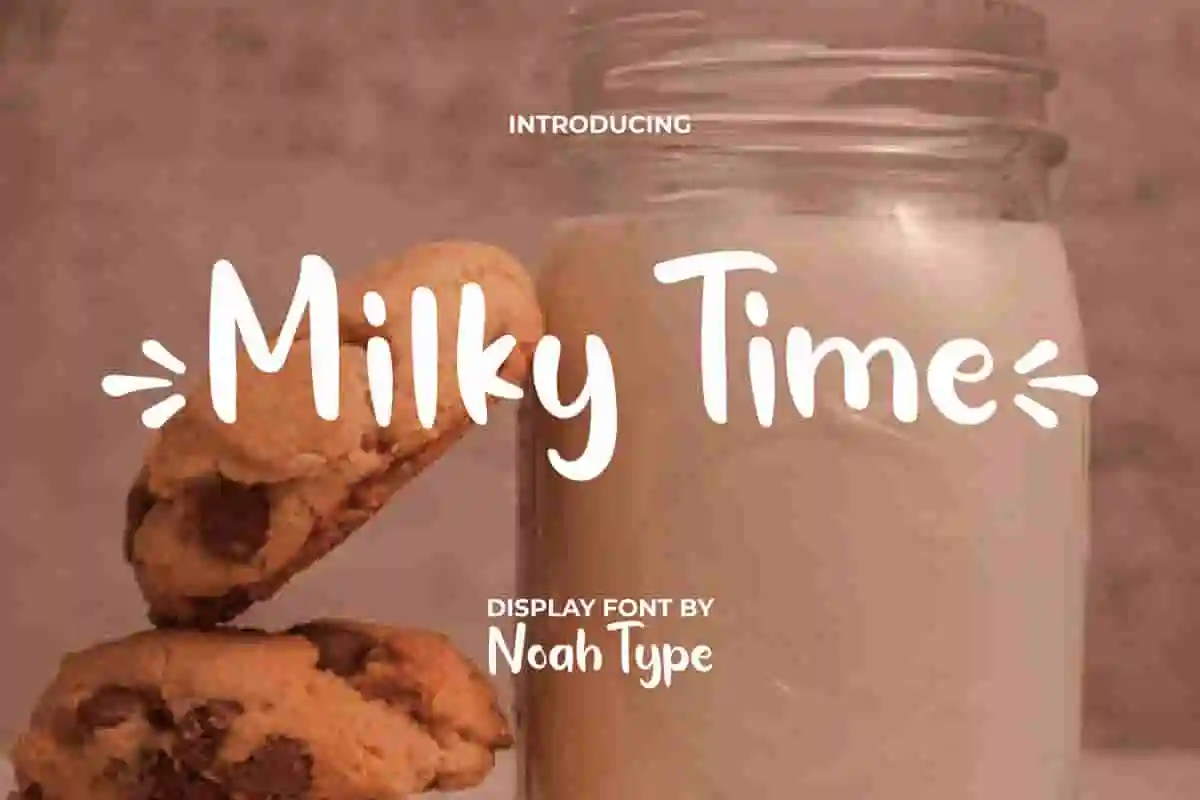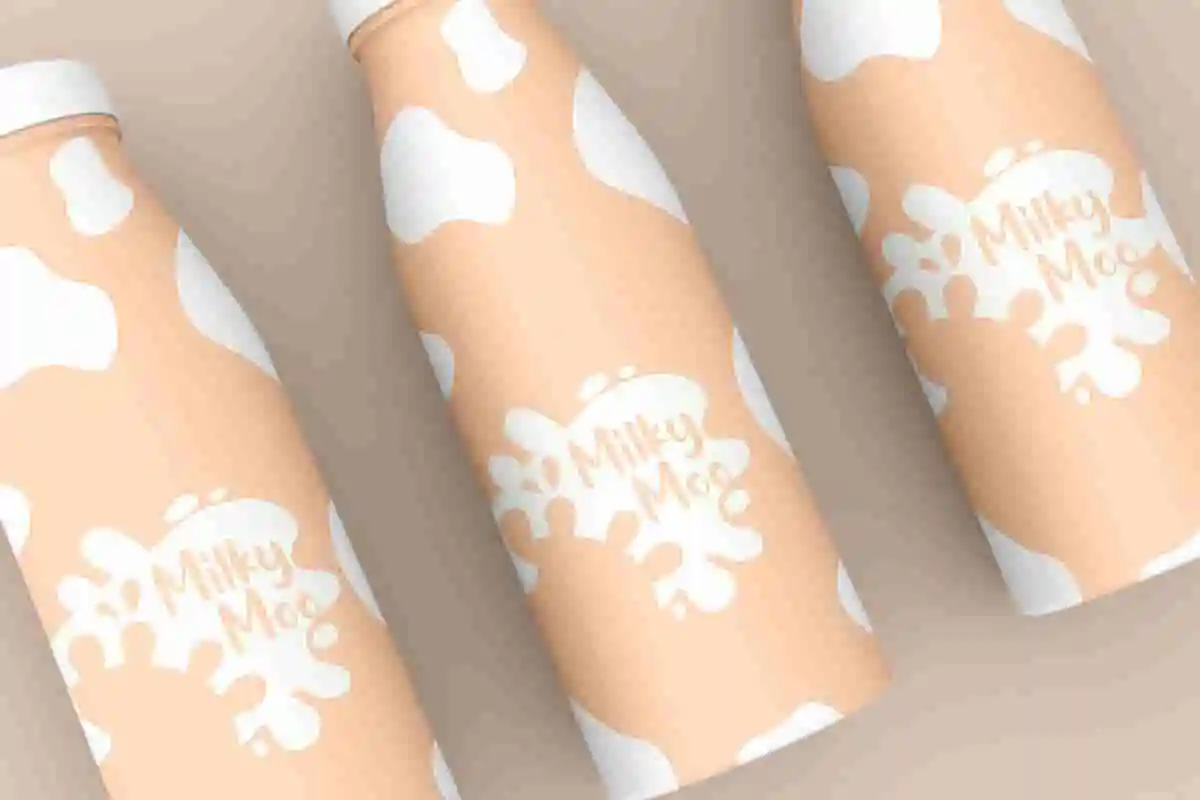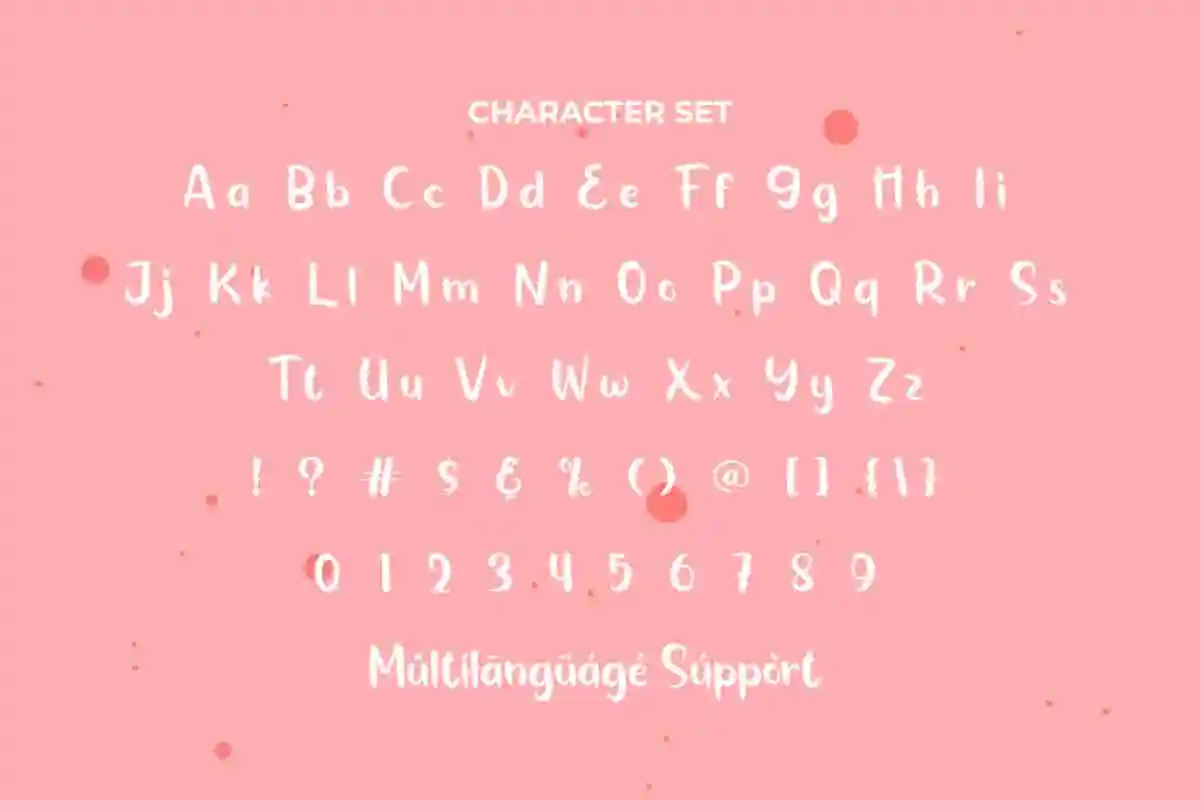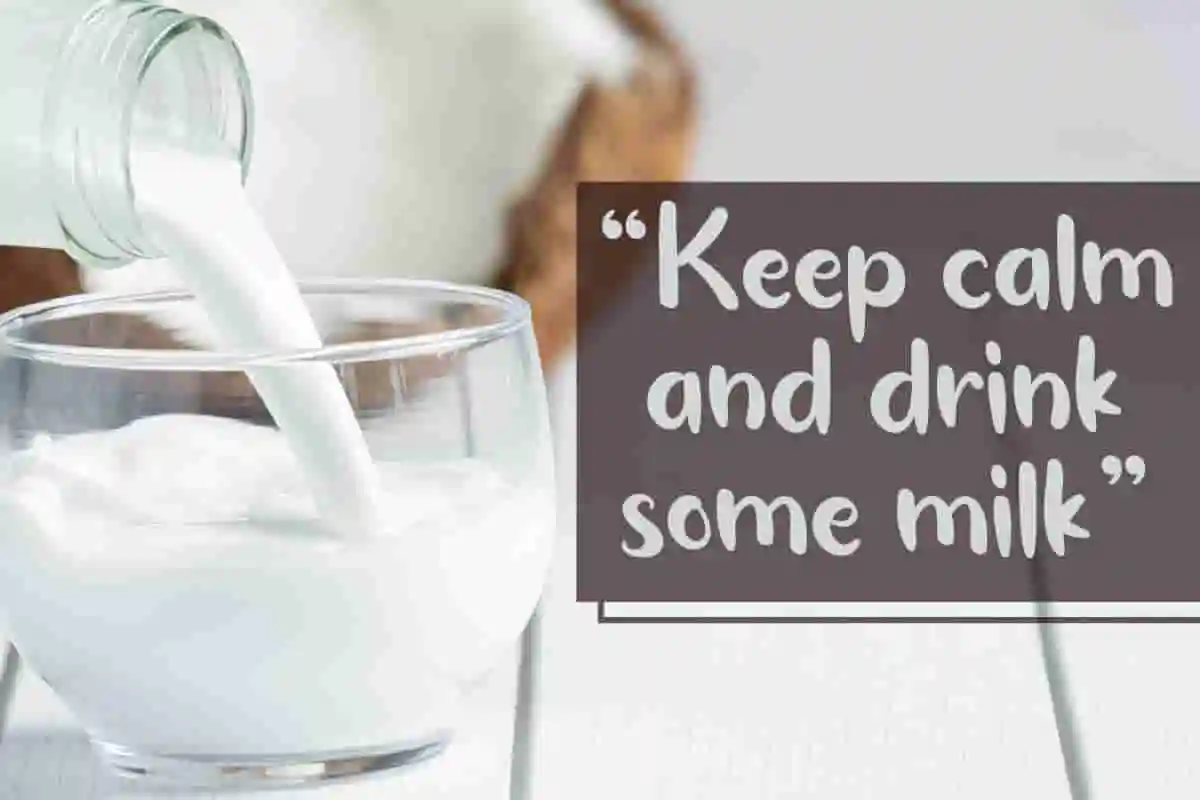
Milky Time Font is a fun handwriting display font, created by NoahType. This adorable font will let you use it in many designs that need a cute look. It will be suitable for any industries, such as advertisement, bakery and pastry, café, event or festival, fashion, food and beverage, furniture, printing, publishing, and more!
Milky Time Font includes full set of Uppercase and Lowercase Basic Characters, Numerals and Punctuation, and Swoosh. Get inspired and use this charming font in your various designs, such as brand logo, brochure, business card, custom design, label, menu, poster, product packaging, quote, screen printing, stationery, title, website, and more!
Milky Time Font supports multilingual languages (including multiple currency symbols) with a simple installation, also have swoosh characters options that you can select and use to make it standout. The font will be ready to use both on Windows machine or Mac. It work well on Adobe software such as Illustrator, Photoshop and several other software.